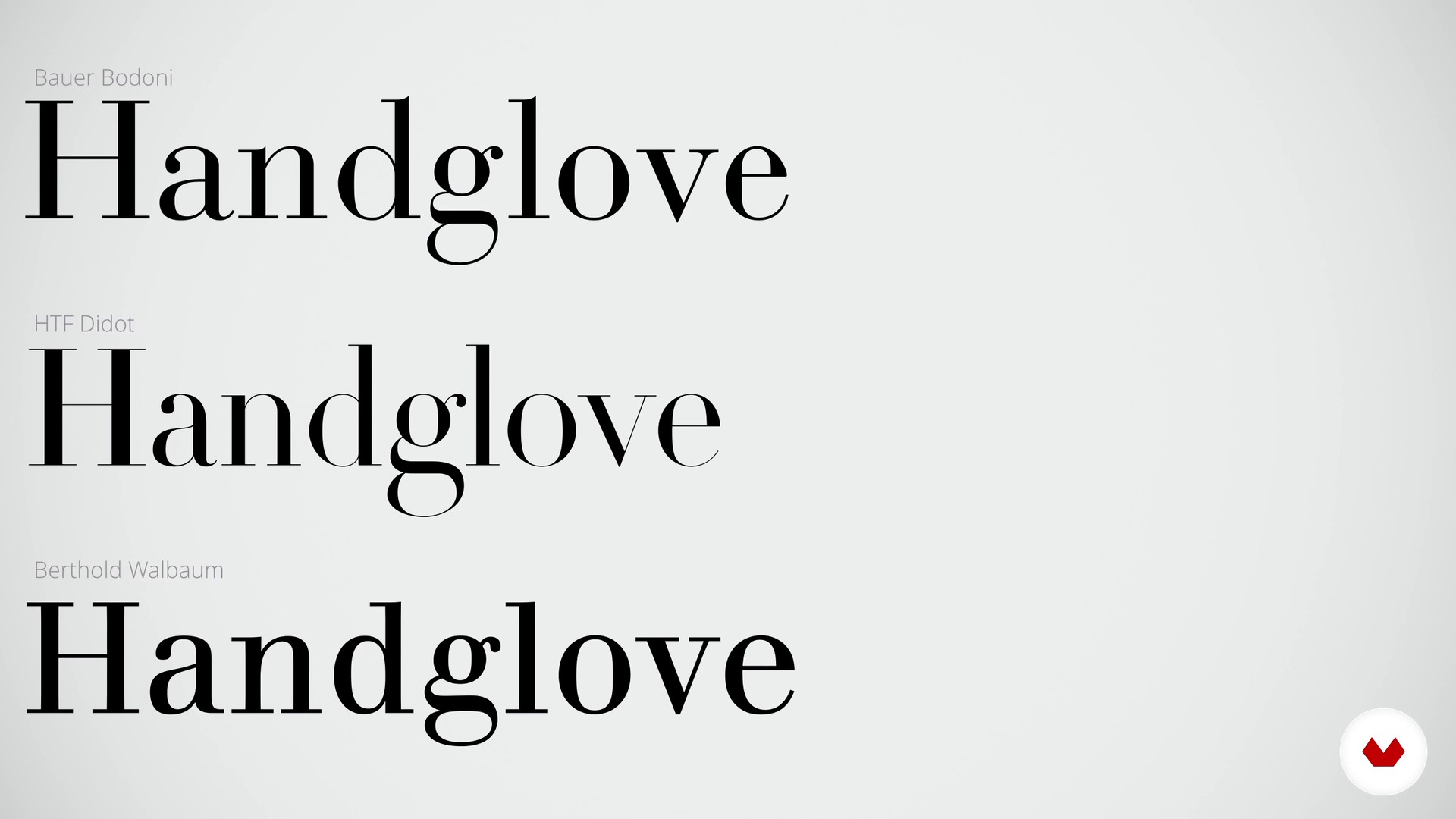
What the types tell us
About the video: What the types tell us
“In this lesson we will identify which letters and their style tell us.”
In this video lesson Enric Jardí addresses the topic: What the types tell us, which is part of the Domestika online course: How to Choose Fonts. Discover what each type of font tells us and how to choose the right one for your project.
“What the types tell us So far we have seen technical issues, questions of details, about choosing a letter, but above all one of the reasons we choose a letter is its style. Let's try to see what the letters tell us, what does your style count, if we can determine it directly. Today anyone who operates a computer is aware that the letter you use is also sending a message beyond the posted text. Everybody uses fonts that are available in operating systems. With them they make invitations, posters for parties, for public, private use. We all know that typography conveys a certain message to u...”